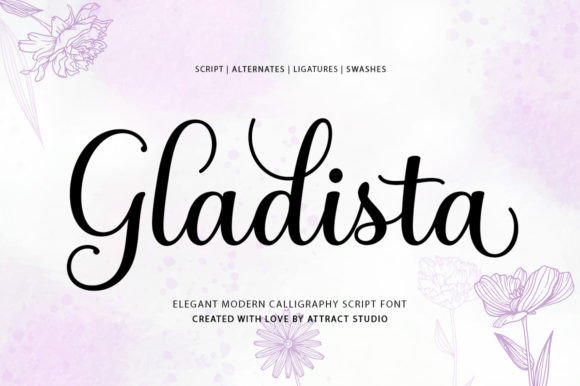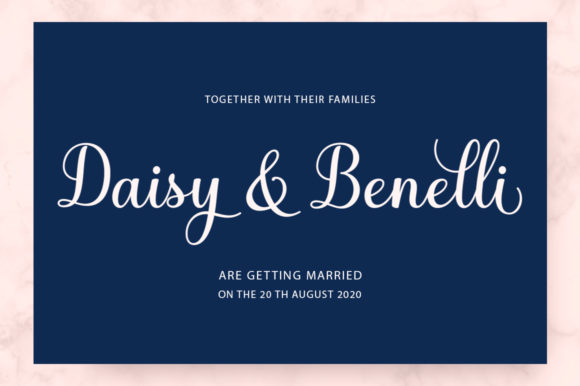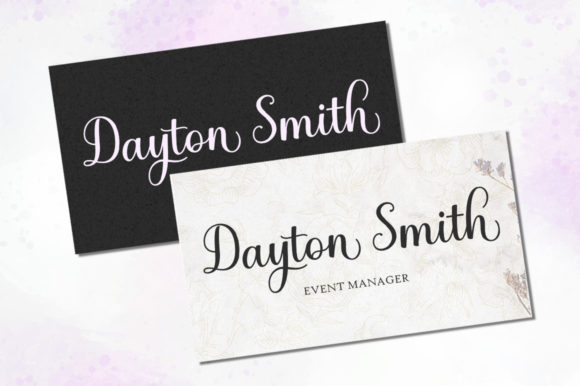
Gladista Font: Elegant Calligraphy Script for Wedding & Branding Design
About the Gladista Font
Step up your design game with Gladista Font, a font that exudes confidence and style. Gladista is a flowing handwritten font, described by an elegant touch, perfect for your favorite projects. Fall in love with its incredibly distinct and timeless style and use it to create spectacular designs!
Gladista’s elegant, flowing style is ideal for headlines, short text blocks on invitations or branding materials, and even short-form social media content where its personality shines. It works beautifully in projects requiring a touch of sophistication and handwritten charm, such as logos, wedding stationery, or product packaging for luxury goods. However, its delicate nature makes it unsuitable for body text or lengthy paragraphs, and its low x-height would be problematic in user interfaces.
For effective pairings, consider complementing Gladista with a clean sans-serif like Montserrat for a modern contrast, or a classic serif such as Garamond for a more traditional feel. A simple geometric sans-serif could also work well, providing a structured counterpoint to Gladista’s organic forms. Avoid pairing it with other script fonts as this could create visual clutter.
Gladista projects a sophisticated and feminine personality, conveying elegance and a sense of refined artistry. Its distinct style ensures memorability and lends itself to brands aiming for a premium or luxurious image.
Gladista Font Usage Examples
Gladista Font Example